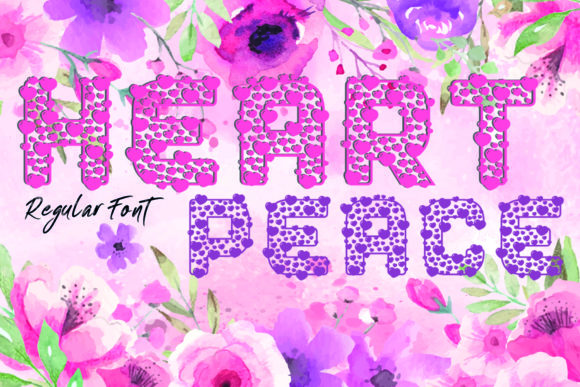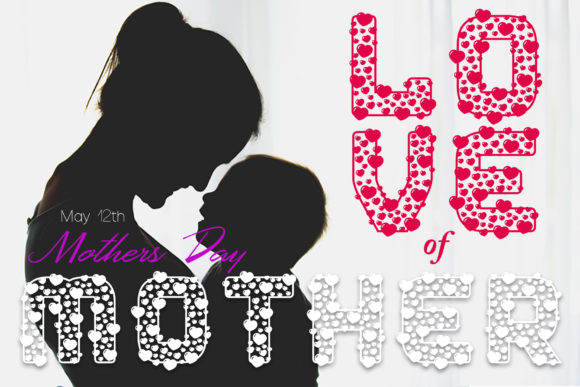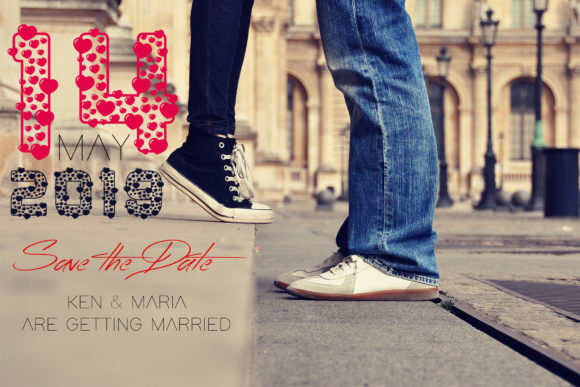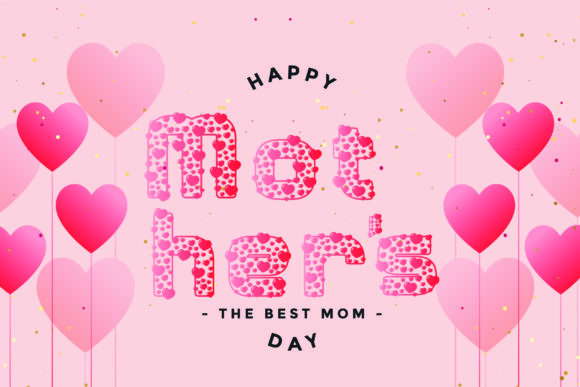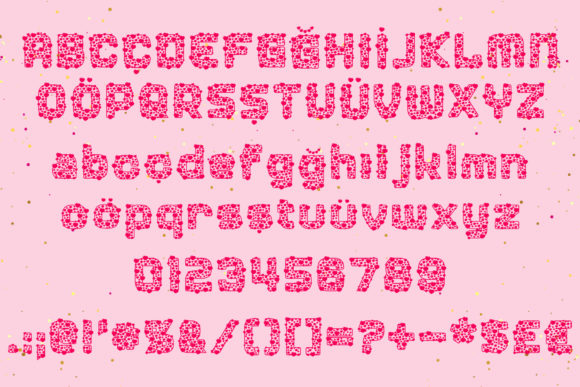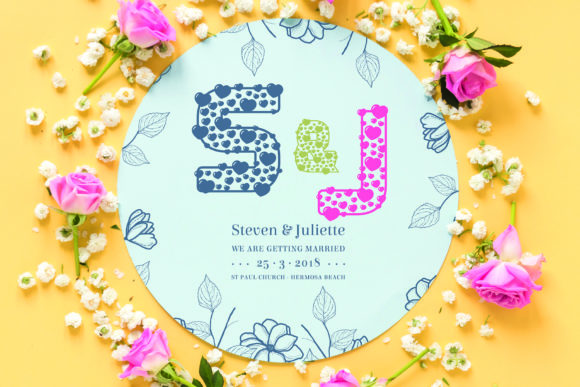
Introducing Heart Peace Font: The Ultimate Display Font for Romantic Designs
Are you a designer or crafter looking for a font that exudes love and warmth? Look no further than Heart Peace Font, a lovely and romantic display font that is sure to add a delicate and adorable spin to any design project. As its name suggests, Heart Peace is a font that is full of hearts, making it the perfect choice for designs that require a touch of whimsy and romance.
What is Heart Peace Font?
Heart Peace Font is a display font that is designed to make a statement. Its unique and playful design features hearts of various sizes and shapes, creating a font that is both eye-catching and charming. The font is perfect for use in a variety of design projects, including wedding invitations, Valentine’s Day cards, and other romantic designs.
Key Features of Heart Peace Font
So, what makes Heart Peace Font so special? Here are just a few of its key features:
- Unique Heart Design: The font features a variety of heart designs, including small, medium, and large hearts, as well as hearts with arrows and other embellishments.
- Playful and Whimsical: The font has a playful and whimsical feel, making it perfect for designs that require a touch of personality.
- Romantic and Adorable: The font’s heart design makes it perfect for romantic designs, such as wedding invitations and Valentine’s Day cards.
How to Use Heart Peace Font
Using Heart Peace Font is easy. Here are a few ways you can use the font in your design projects:
- Wedding Invitations: Use Heart Peace Font to create beautiful and unique wedding invitations that will set the tone for your special day.
- Valentine’s Day Cards: Create romantic Valentine’s Day cards using Heart Peace Font and make your loved one feel special.
- Social Media Graphics: Use Heart Peace Font to create eye-catching social media graphics that will grab the attention of your followers.
- Crafting Projects: Use Heart Peace Font to add a personal touch to your crafting projects, such as scrapbooking and card making.
Benefits of Using Heart Peace Font
So, why should you use Heart Peace Font in your design projects? Here are just a few benefits:
- Adds a Touch of Romance: Heart Peace Font adds a touch of romance and whimsy to any design project.
- Unique and Eye-Catching: The font’s unique design makes it stand out from other fonts, making your design project more eye-catching.
- Versatile: Heart Peace Font can be used in a variety of design projects, from wedding invitations to social media graphics.
Tips for Using Heart Peace Font
Here are a few tips for using Heart Peace Font:
- Use it Sparingly: Use Heart Peace Font sparingly to add emphasis to your design project.
- Pair it with Other Fonts: Pair Heart Peace Font with other fonts to create a unique and eye-catching design.
- Experiment with Colors: Experiment with different colors to find the perfect combination for your design project.
In conclusion, Heart Peace Font is a lovely and romantic display font that is perfect for designers and crafters looking to add a touch of whimsy and romance to their design projects. With its unique heart design, playful and whimsical feel, and ease of use, Heart Peace Font is sure to become a favorite font in your collection. So why wait? Download Heart Peace Font today and start creating beautiful and unique designs that will capture the hearts of your audience.